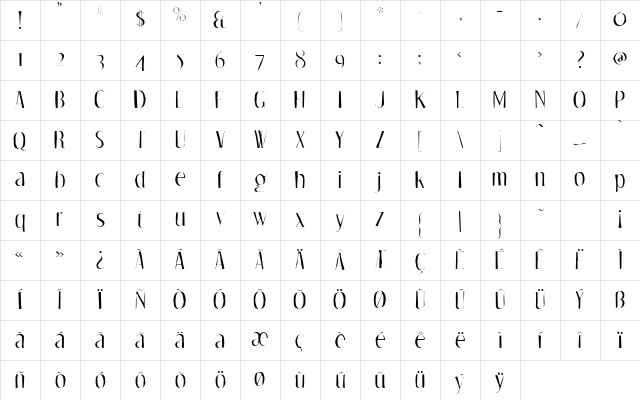
Complete Dream Orphans Gaunt Regular glyph index. Displaying only characters natively supported by Dream Orphans Gaunt Regular font.
Dream Orphans Gaunt is a composed and adaptable typeface that performs quietly and consistently across a wide range of design contexts.